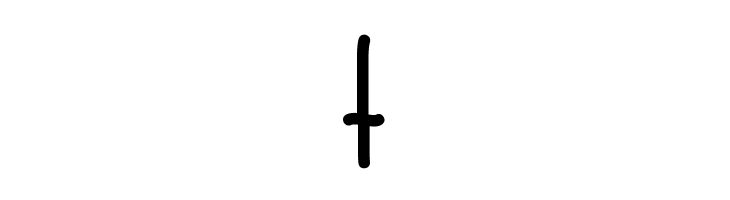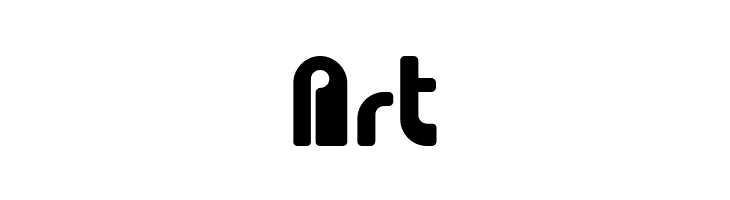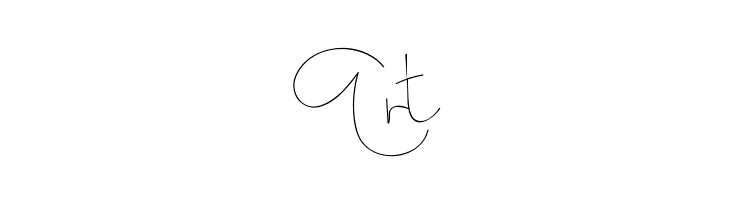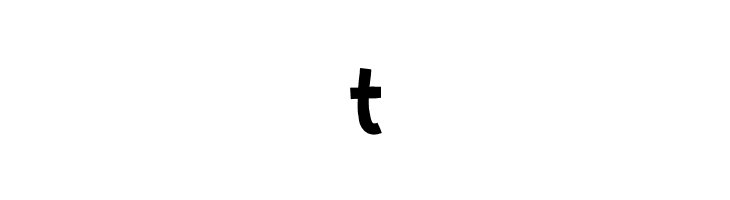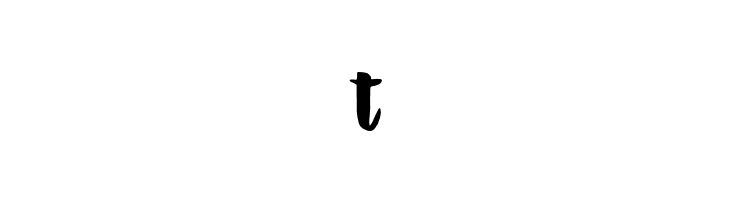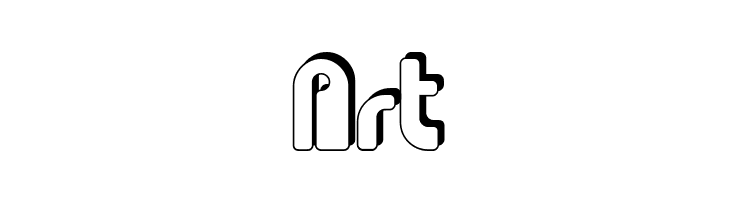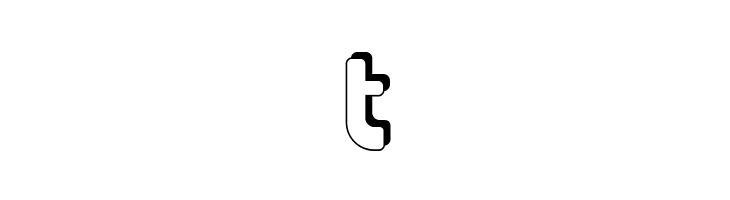
An elegant script font with flowing, cursive characters and decorative flair.
A bold, expressive handwritten font with thick, flowing strokes.
A bold, hand-painted style font with dynamic, brush-like strokes.
A bold, playful handwritten font with smooth, rounded edges.
A playful, bold font with rounded, thick strokes and a friendly appearance.
A playful, hand-drawn font with a bold, rounded style.
A playful, handwritten script font with bold uppercase and fluid lowercase letters.
A bold, geometric font with rounded edges and a playful style.
A bold, modern font with a unique hollow outline and geometric style.